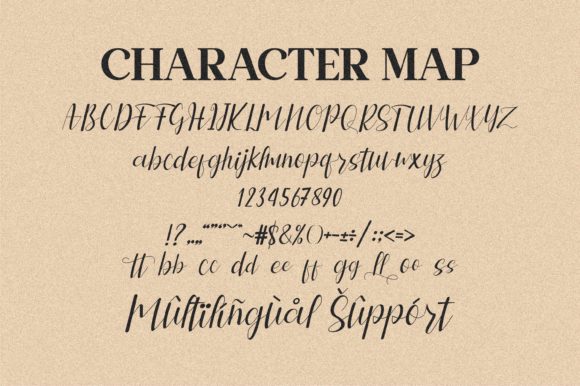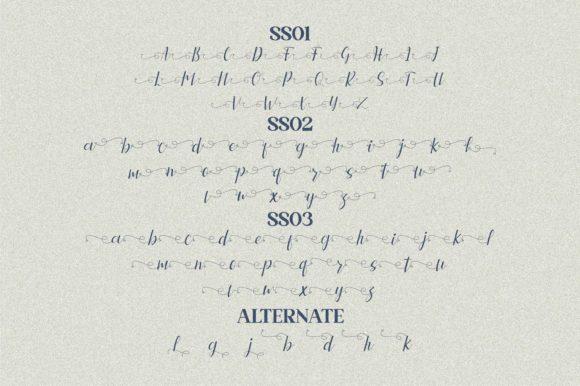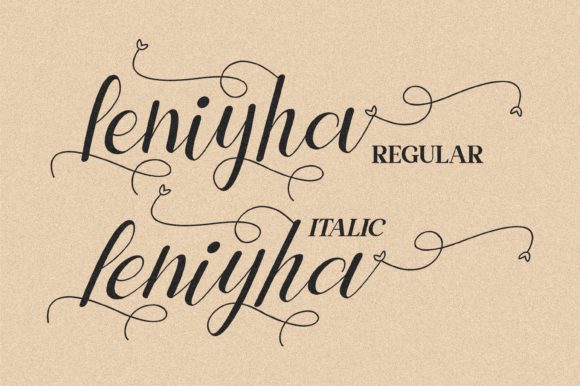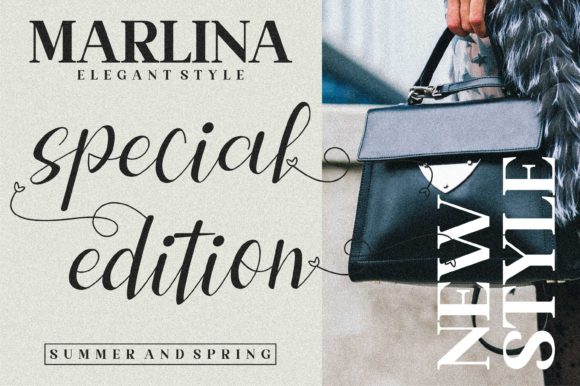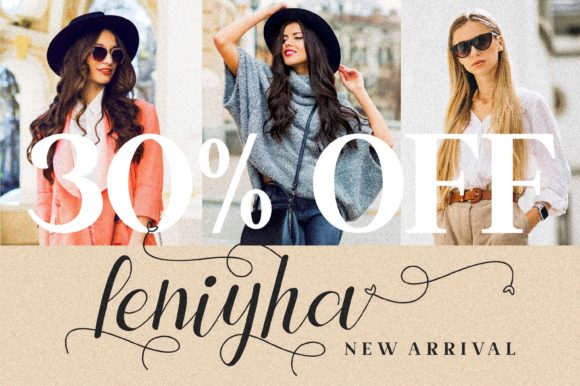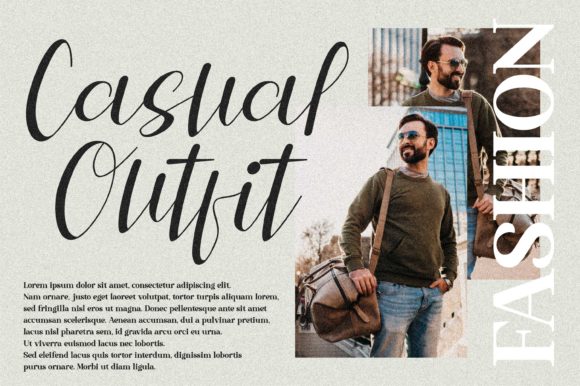
Introduction to Leniyha Font Font
Fonts play a crucial role in design, and the Leniyha Font font is a typeface that brings both character and versatility to any project. Whether you’re working on a branding project, a website, or a print design, the Leniyha Font font offers a unique style that can elevate your work.
Leniyha is a stylish and incredibly elegant script font.
It looks stunning on wedding invitations, thank you cards, quotes, greeting cards, logos, business cards and every other design which needs a handwritten touch This font is PUA encoded which means you can access all of the glyphs and swashes with ease.
Key Features of Leniyha Font Font
The Leniyha Font font is more than just a typeface – it’s a design tool that helps you communicate your message with style and clarity. Its unique character set and versatile design make it suitable for a wide range of applications, from elegant invitations to bold headlines.
With its carefully crafted letterforms and balanced proportions, the Leniyha Font font ensures readability and visual appeal across all mediums.
What makes Leniyha Font font special?
The Leniyha Font font stands out with its unique design, exceptional readability, and versatility across various design applications.